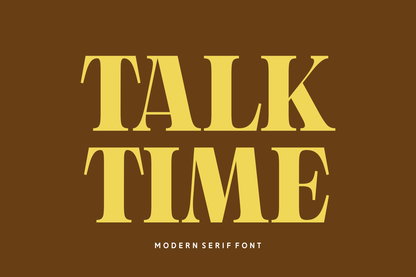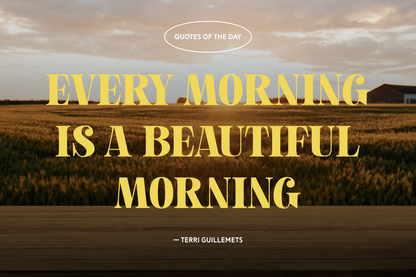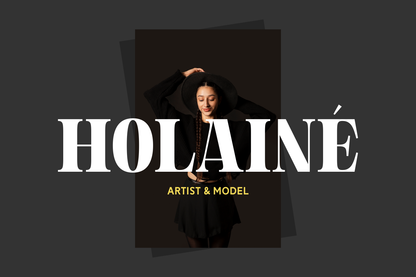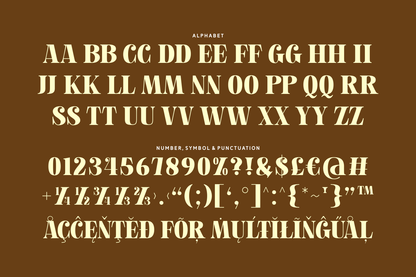
Talk Time is a bold and modern serif font with a striking, high-impact presence. Whether you're designing for magazines, packaging, or digital content, Talk Time delivers a commanding typographic voice with timeless style.